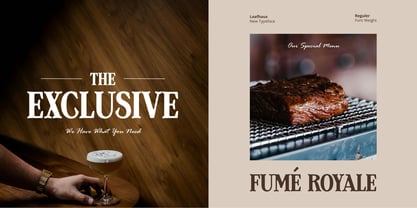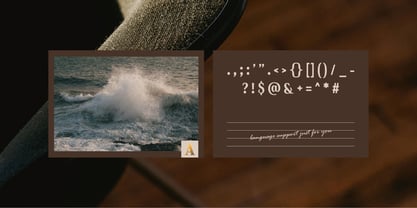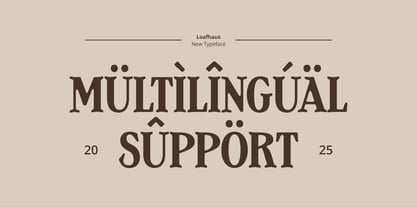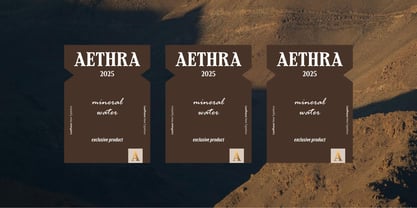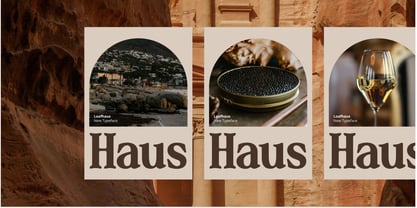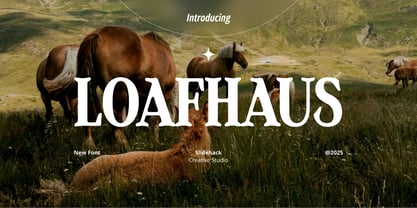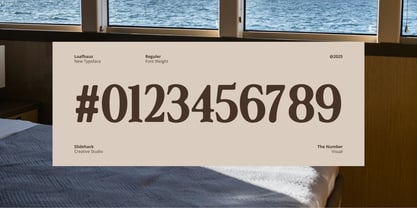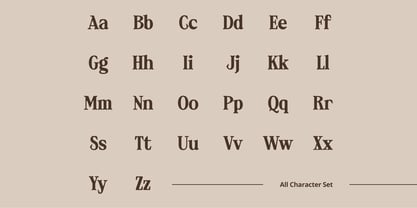
Loafhaus
by Slidehack
The Loafhaus Font Family was designed by Panca Hasan and published by Slidehack. Loafhaus contains 1 styles. More about this family
Loafhaus is a bold serif display font with vintage charm and strong character, perfect for editorial titles, branding, logos, and packaging. Inspired by old-style western and classic book typefaces, Loafhaus blends elegance and rustic spirit. Ideal for designers seeking high-impact headlines with a timeless, handcrafted aesthetic.
Designers: Panca Hasan
Foundry: Slidehack